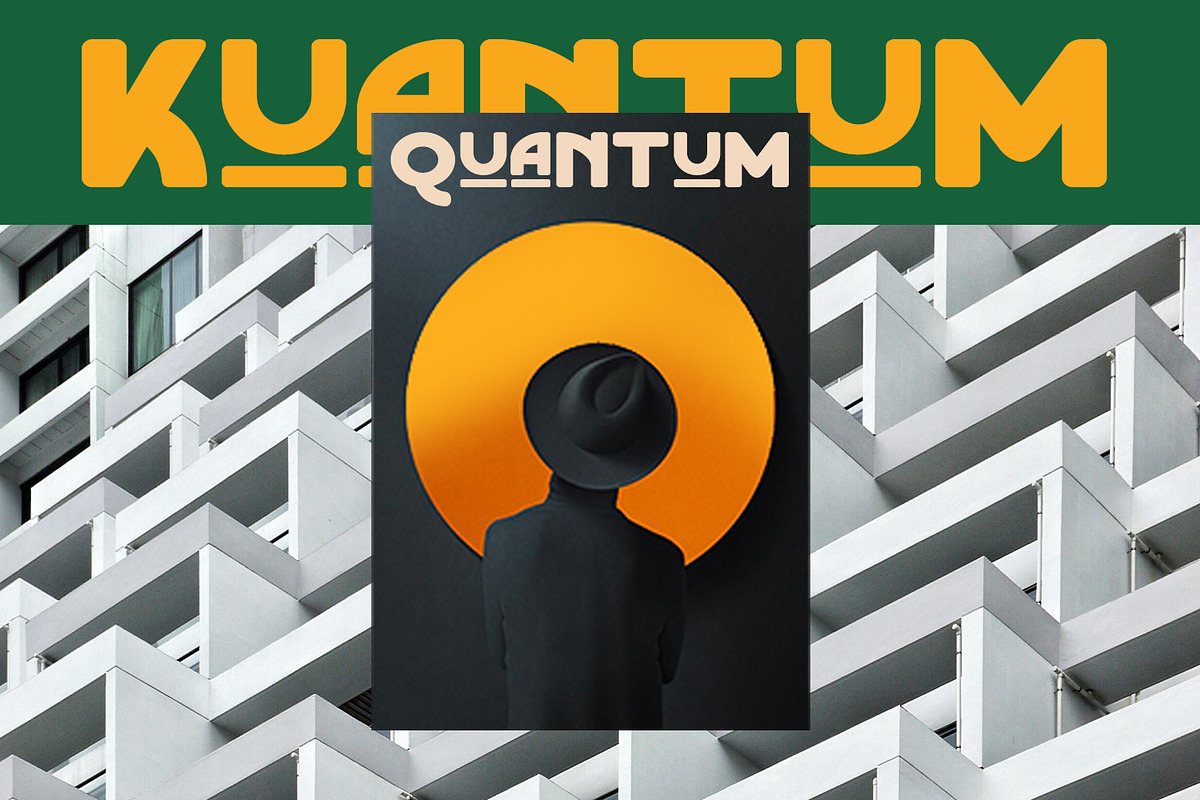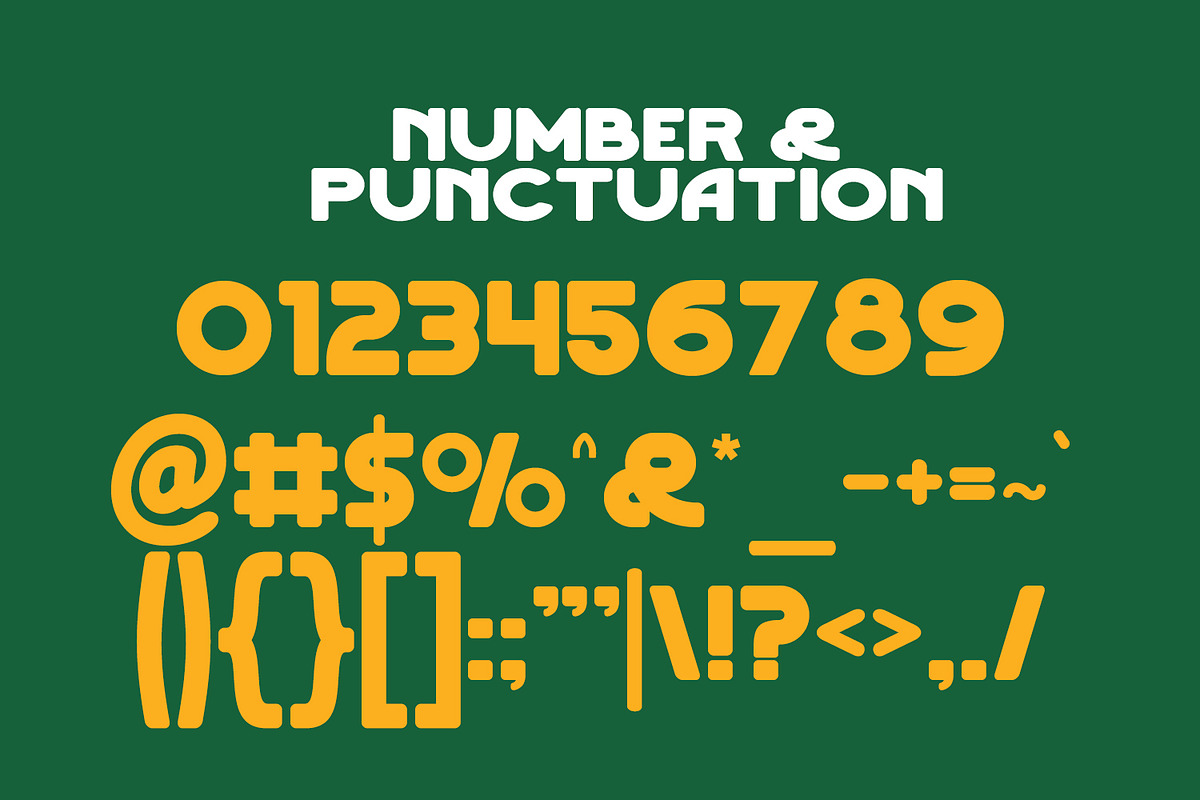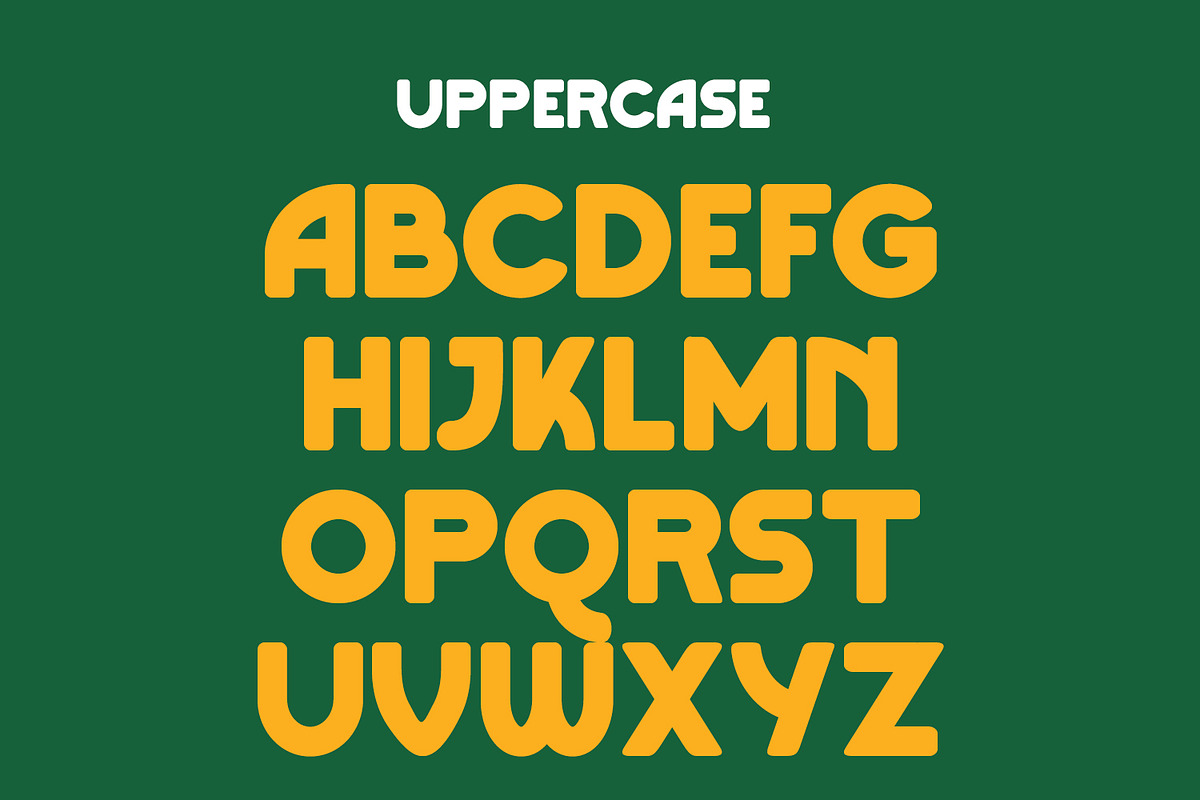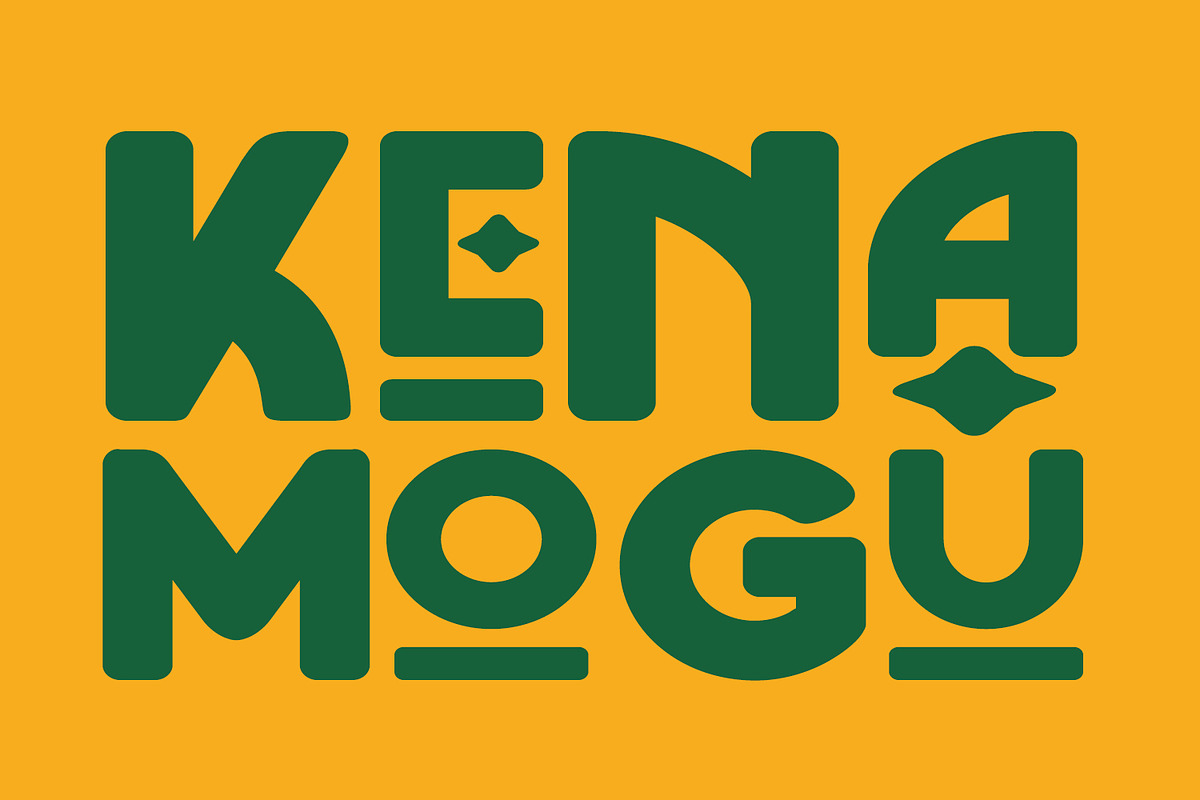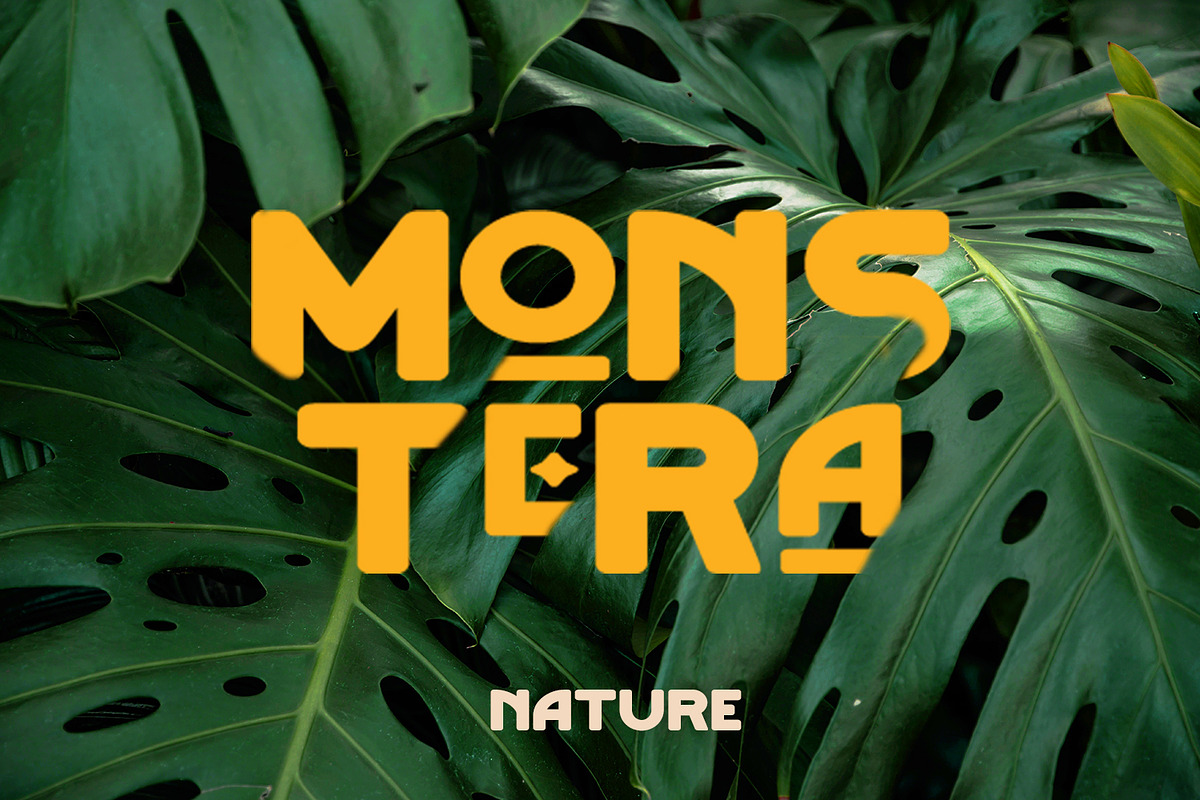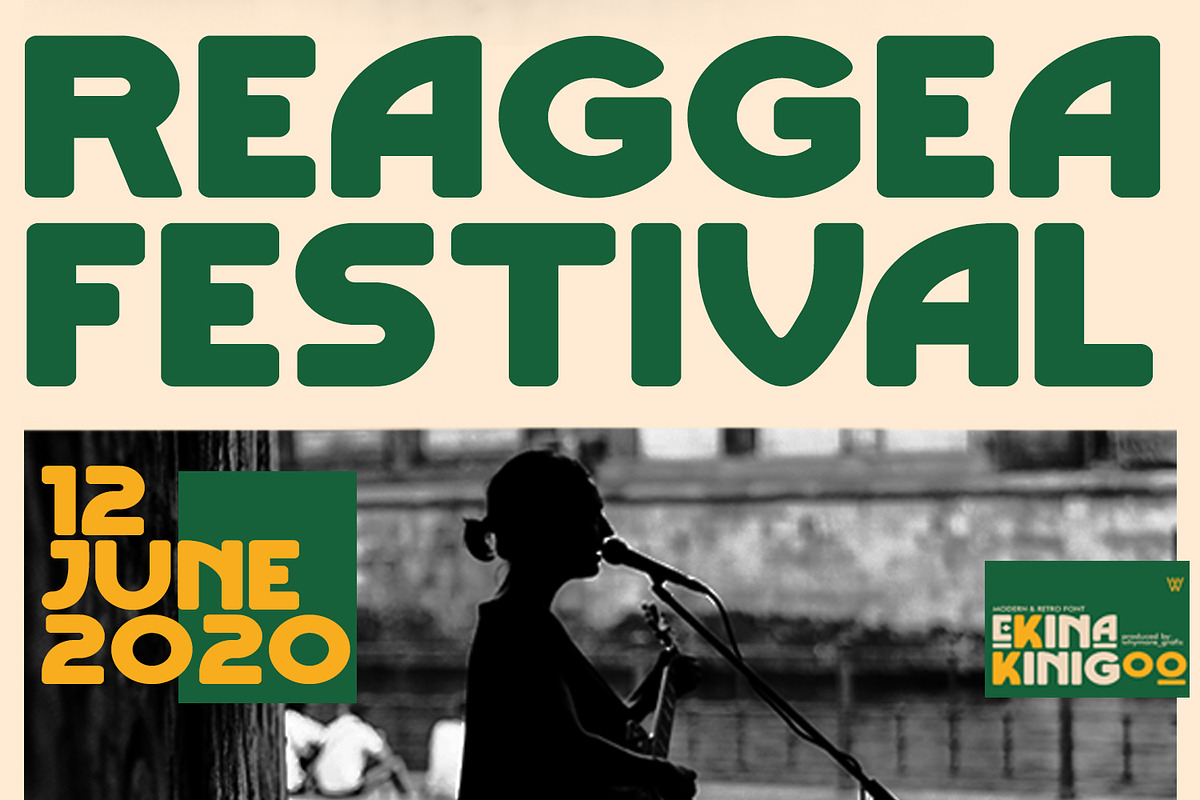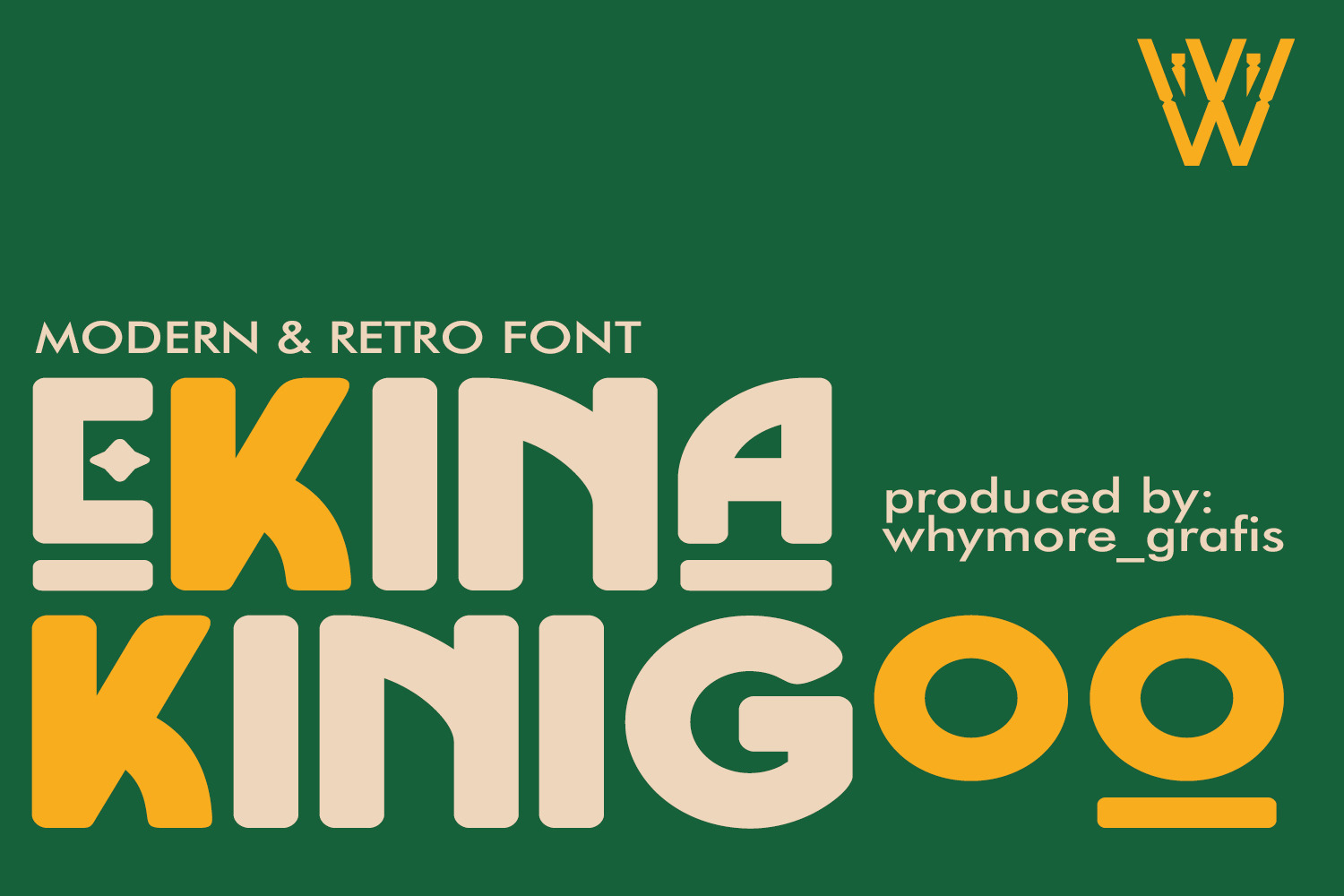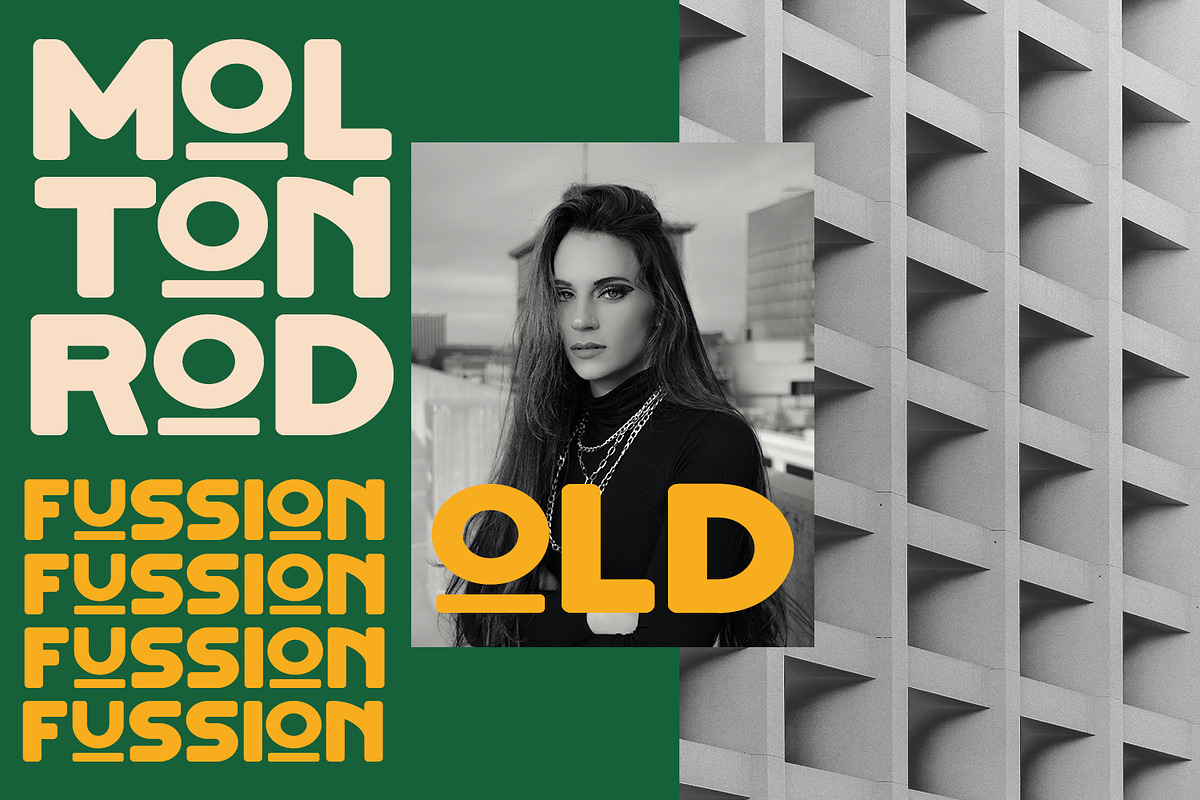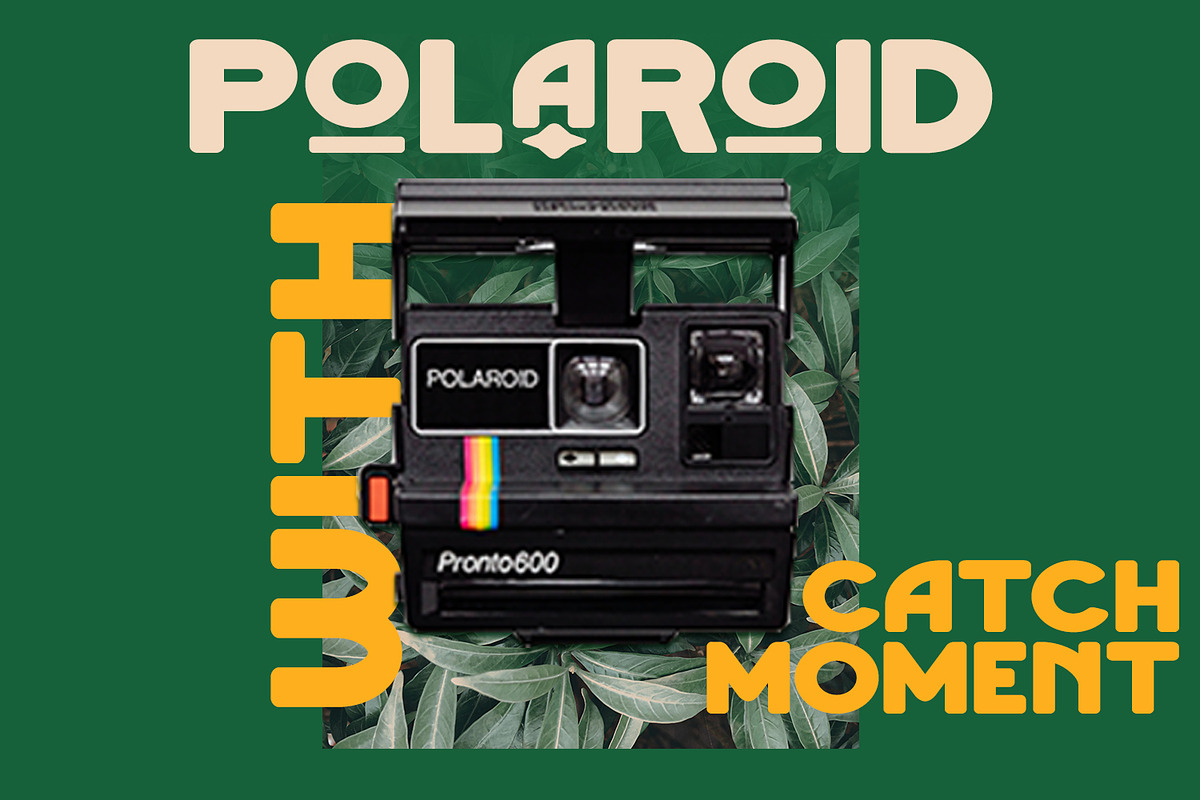
Ekina Kinigoo Bold Retro Font
The Ekina Kinigoo Font is a charming retro typeface that evokes nostalgia and vintage charm. With its playful curves and distinctive retro-inspired details, this font brings a sense of whimsy to any design project. Whether you’re creating posters, signage, or branding materials with a retro theme, the Ekina Kinigoo Font adds a delightful touch of nostalgia that captivates the viewer. Its versatility and retro appeal make it perfect for adding a unique flair to your designs, transporting your audience back to a bygone era.